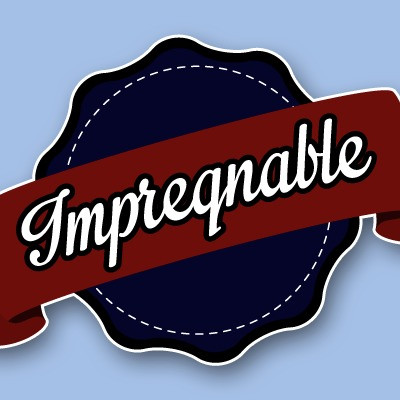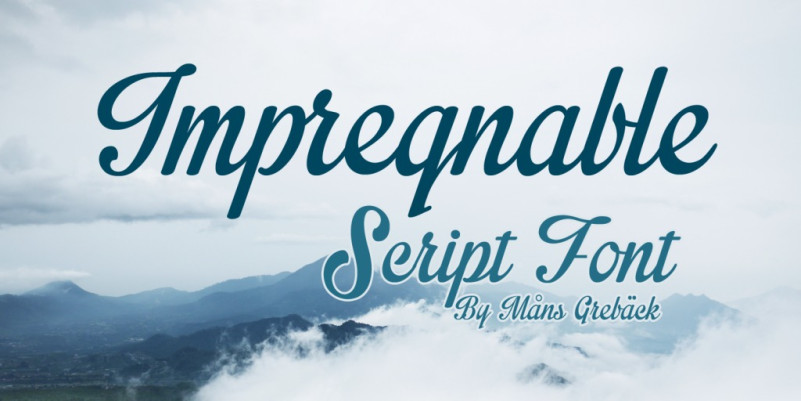
Impregnable Font
Impregnable Script Font,  Ideal for logos, handwritten quotes, product packaging, header, poster, merchandise, social media & greeting cards.